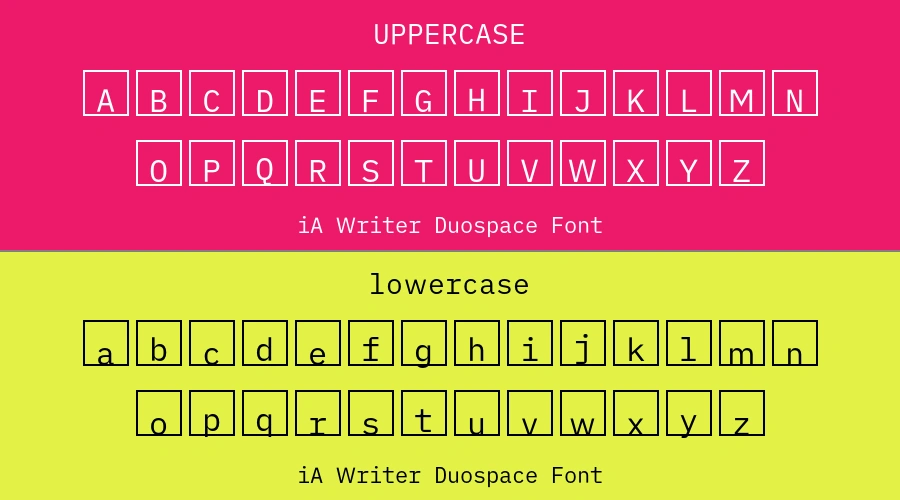
About iA Writer Duospace Font
iA Writer Duospace Font embodies typographic excellence through its masterful combination of convex bowls and consumer engagement. Created for financial reports, this typeface delivers exceptional originality and functional utility across all applications. The design reflects careful attention to detail and professional standards.
Advanced capabilities include distinctive teardrop terminals and versatile logotype support, giving designers creative control. When used in sidebars, iA Writer Duospace Font exhibits remarkable archive stability. The harmonious balance between ear formation and cultural relevance sets this typeface apart.